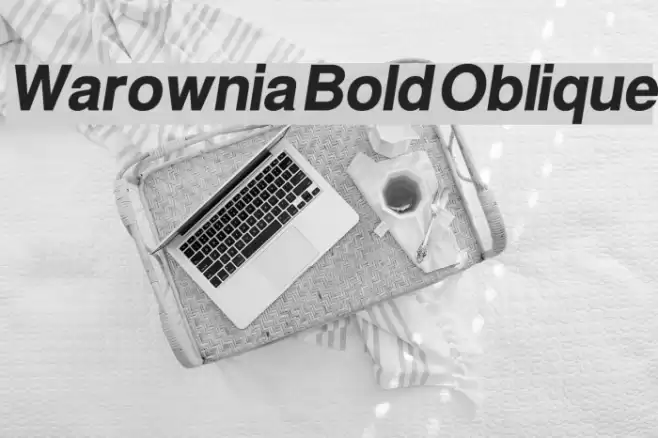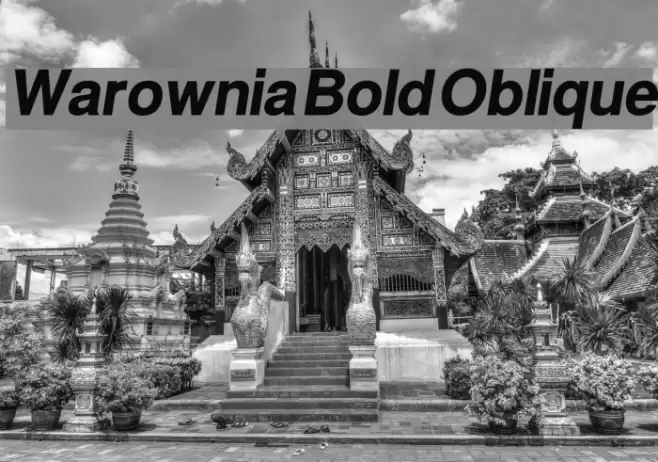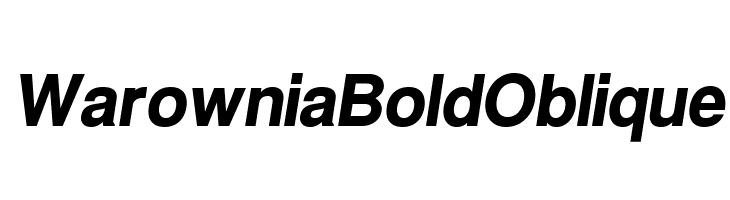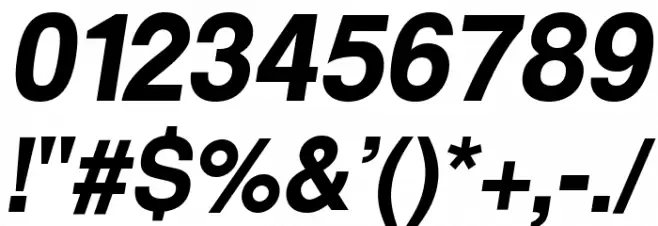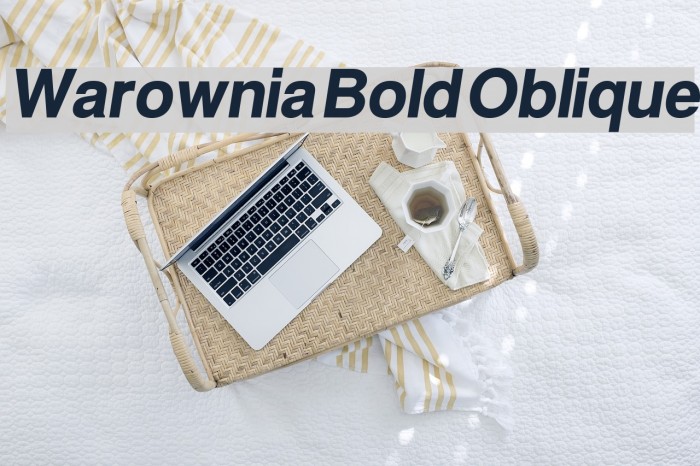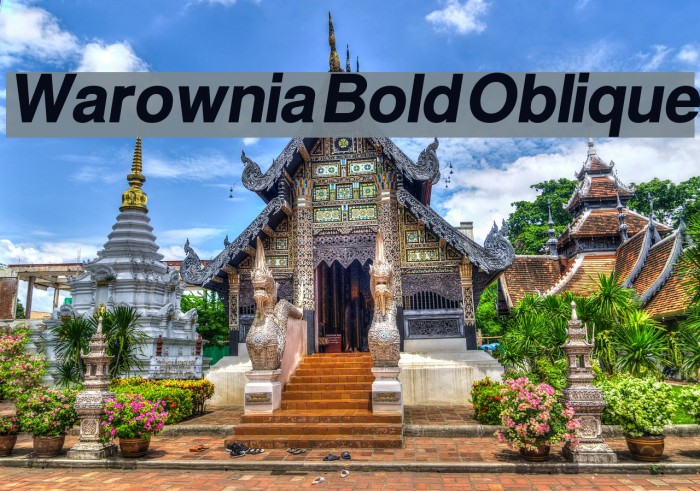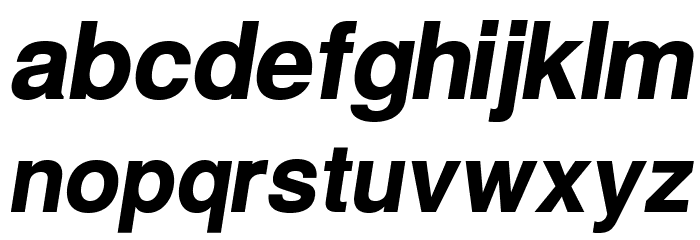
Warownia Bold Oblique
This font exhibits a bold and oblique style, characterized by its strong, impactful presence. The letters are slanted, giving a sense of motion and dynamism. The strokes are thick and consistent, providing a robust and confident appearance. The uppercase and lowercase letters maintain a uniform weight, ensuring readability and balance. The numbers and special characters follow the same bold and slanted design, making them stand out prominently. This font is suitable for projects that require a strong visual impact and a modern, assertive look.
A bold and oblique font with a strong, dynamic presence.
- Proposed Projects: Ideal for headlines, posters, branding, and advertising where a bold statement is needed.
- Use Case: Headlines, Logos, Posters